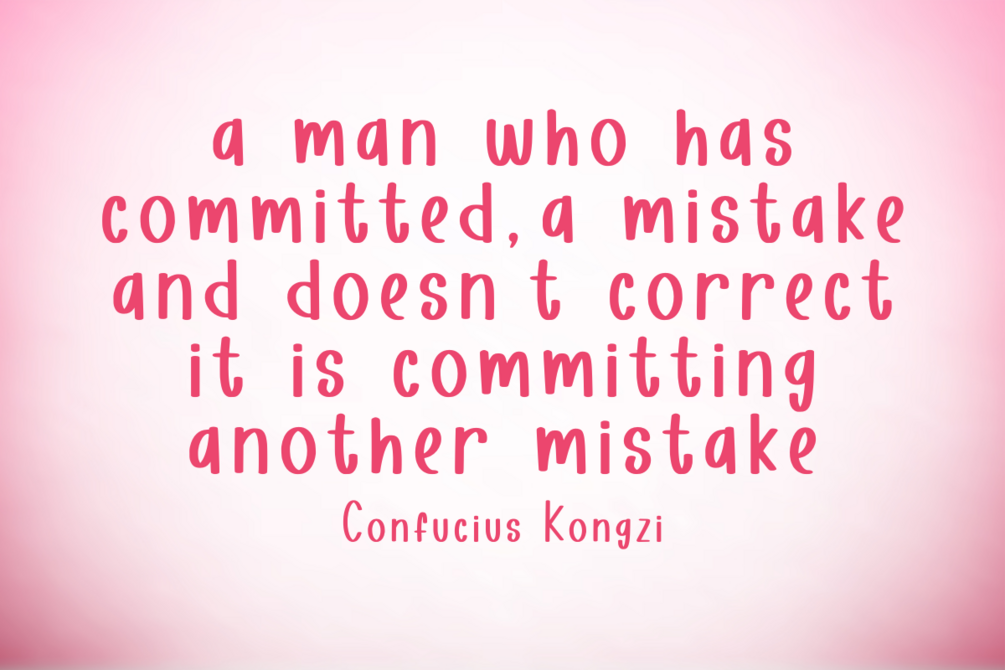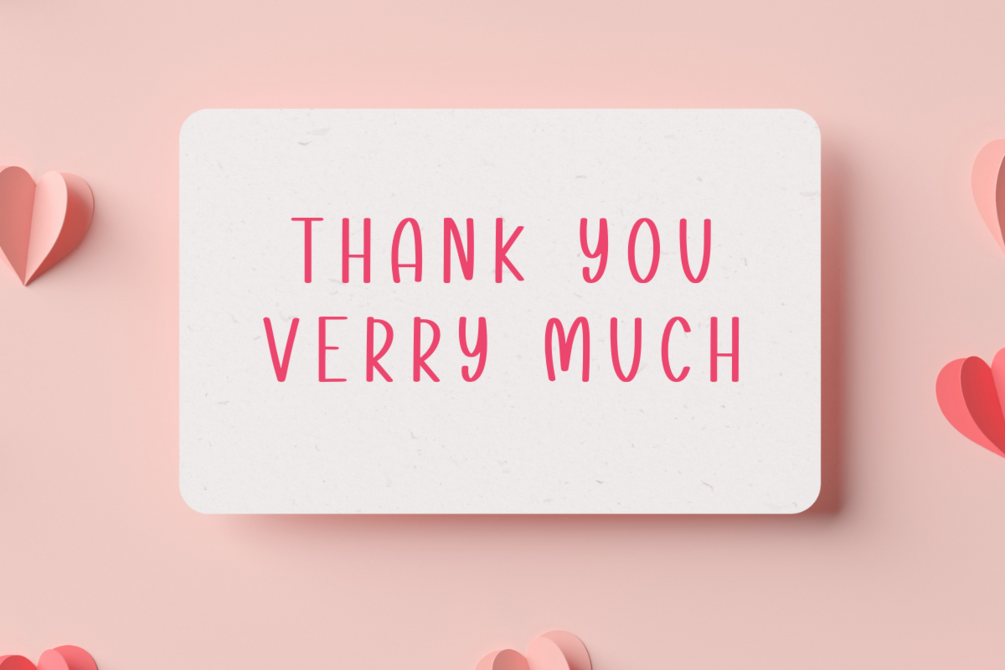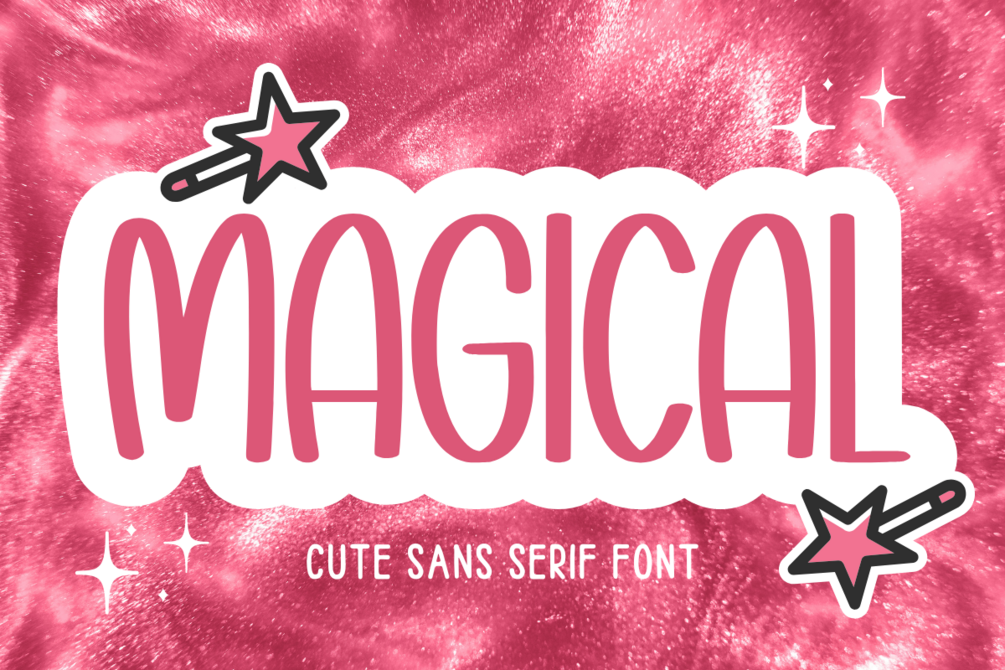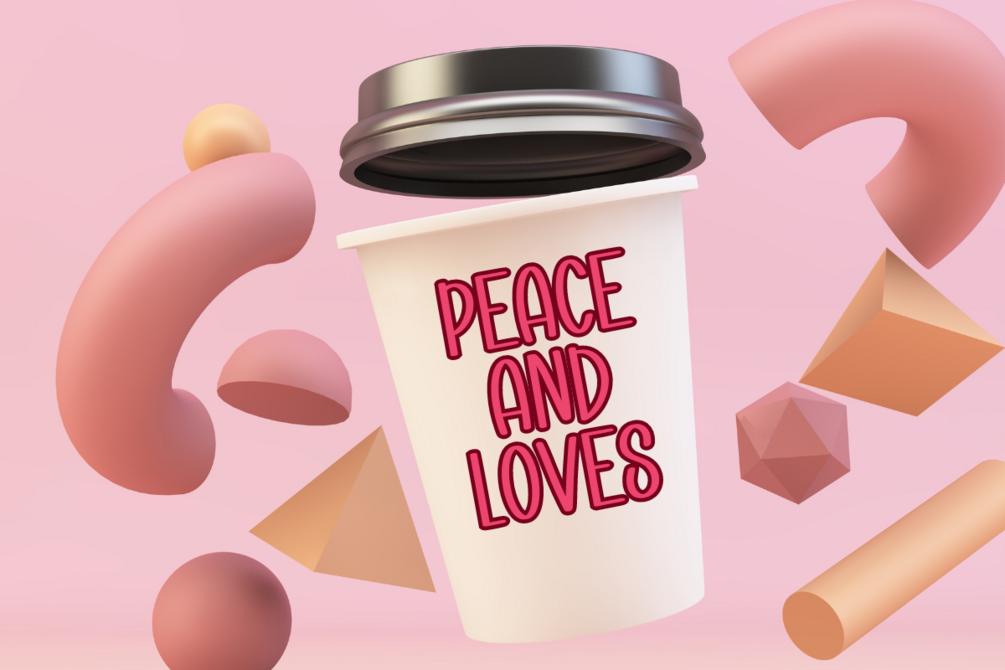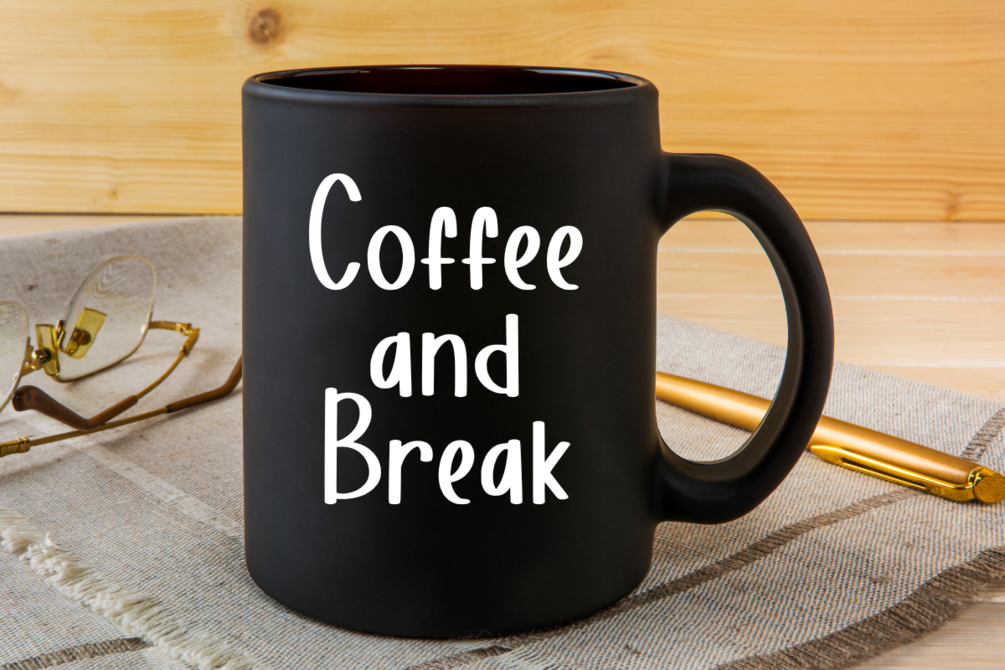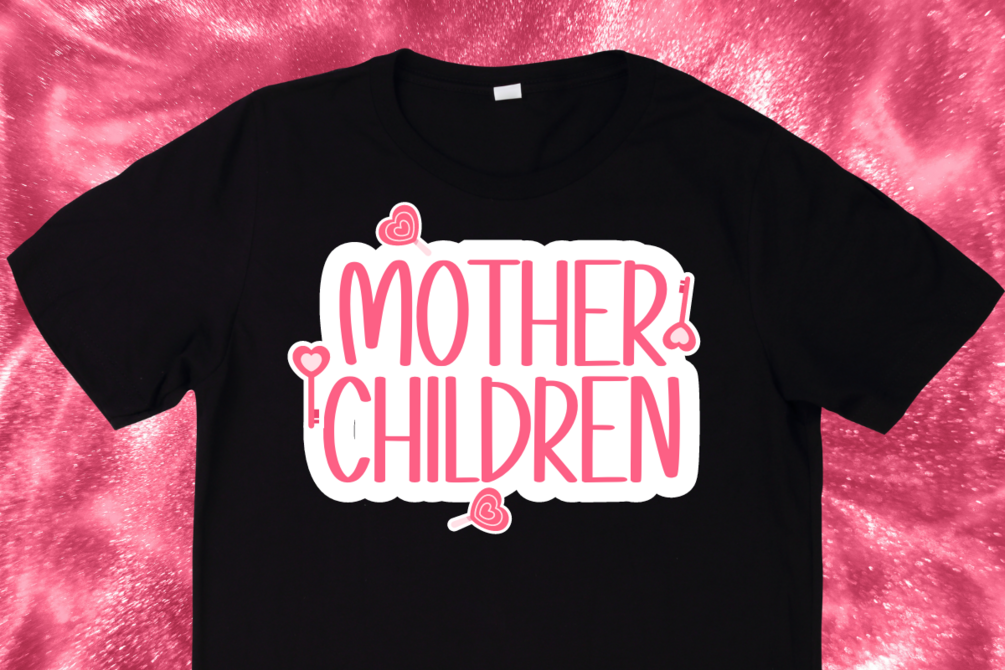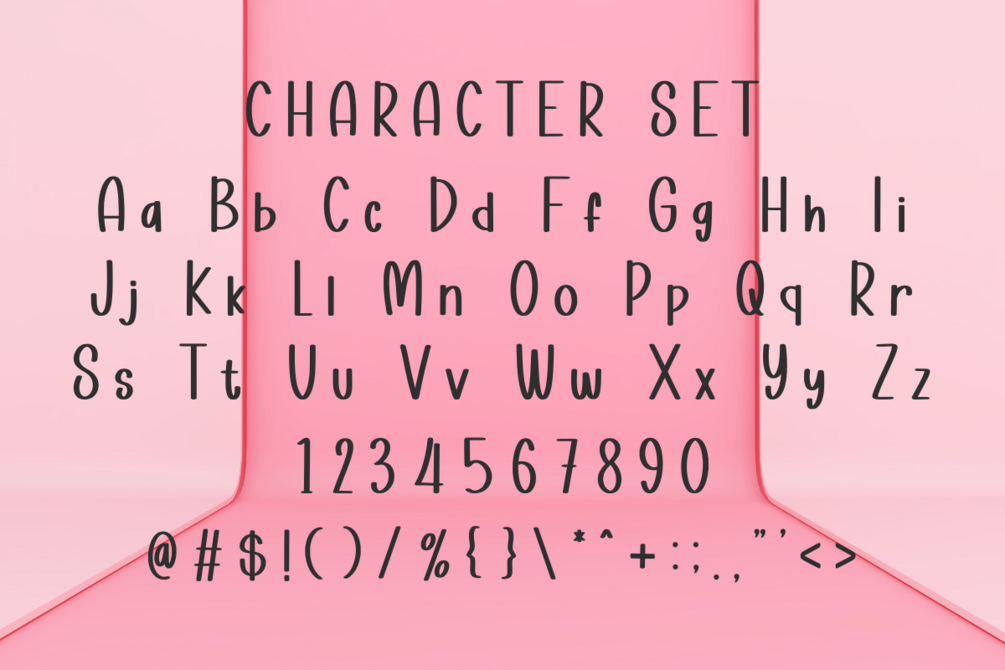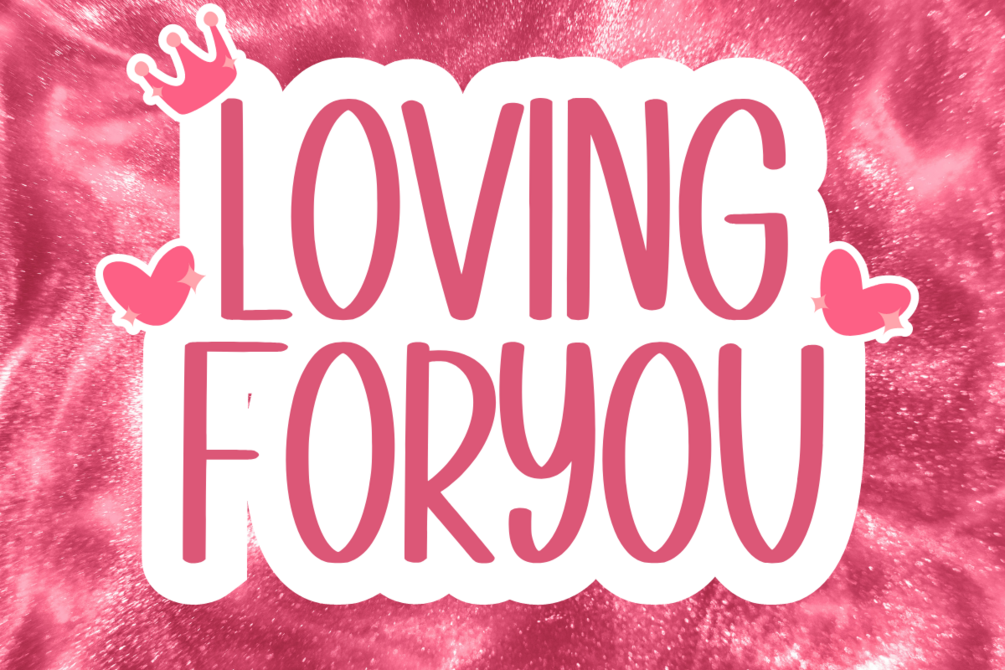
Magical - Cute Sans Serif Font
Magical is a cute and friendly sans-serif font. Perfect for invitations, quotes, and packaging, it adds a touch of whimsy and elegance to any project, delighting viewers with its graceful demeanor.